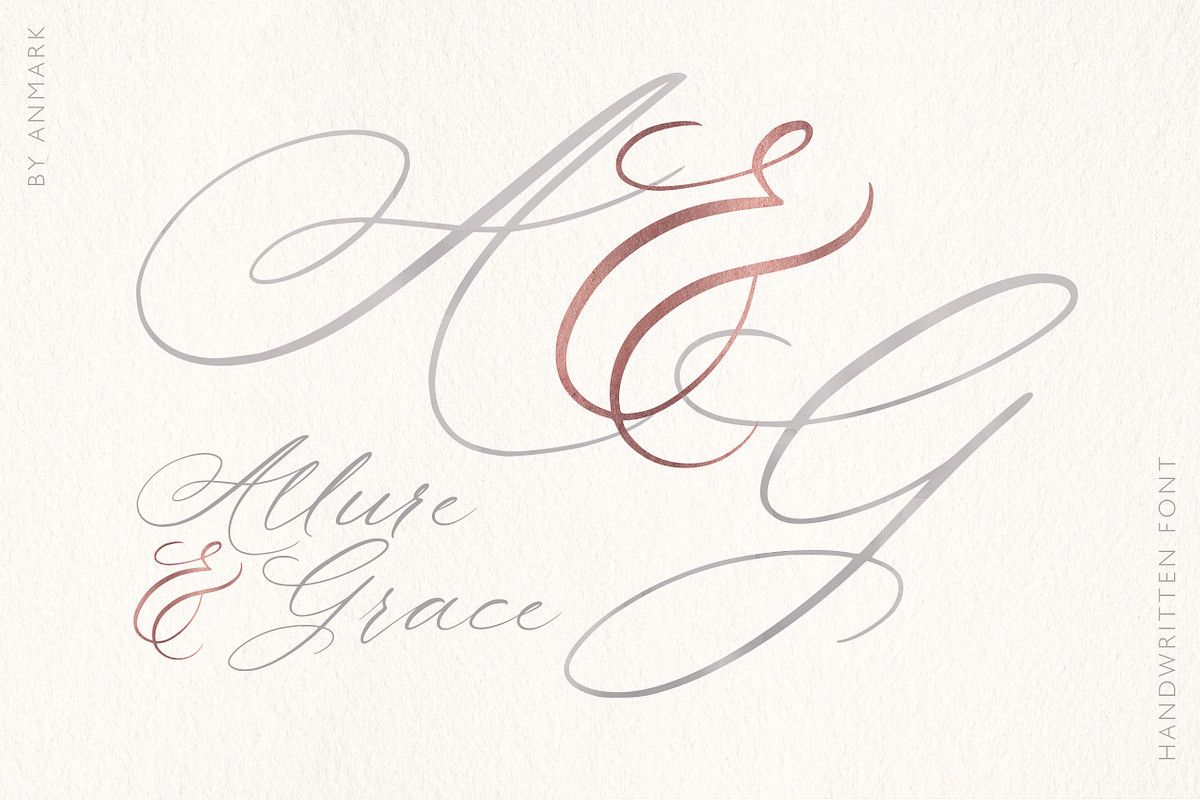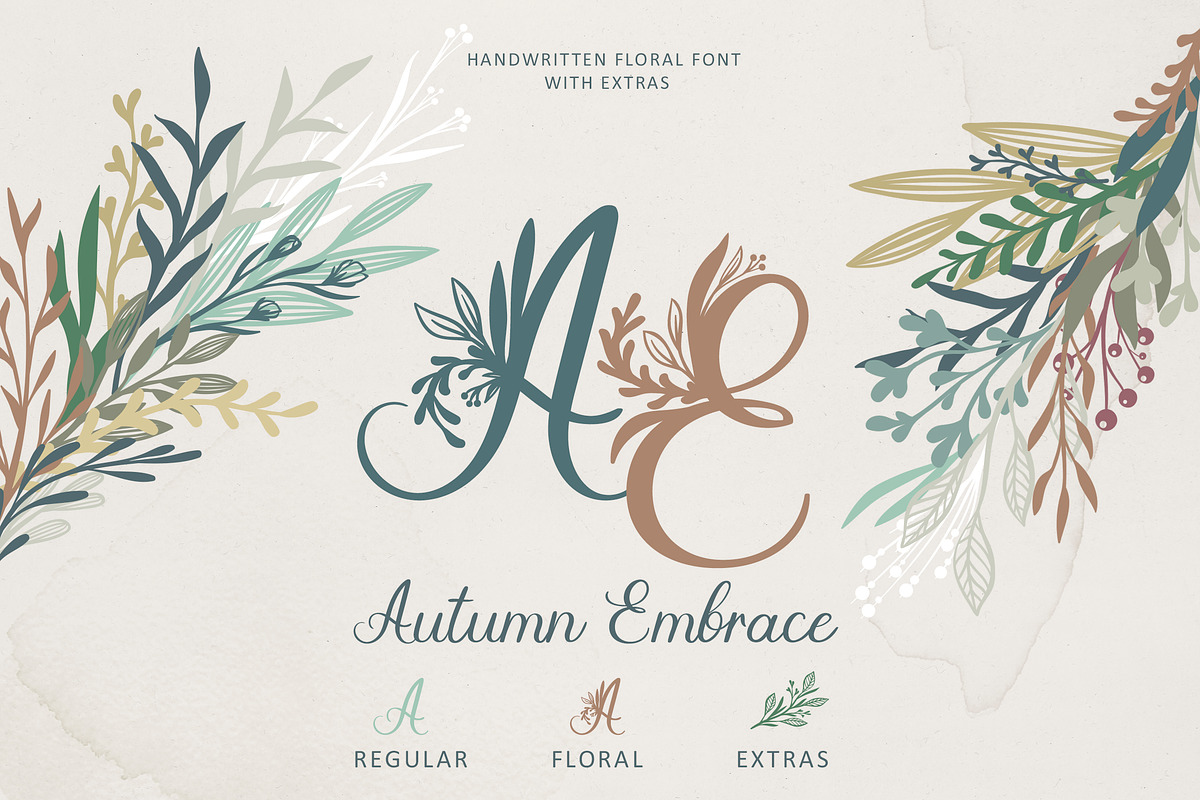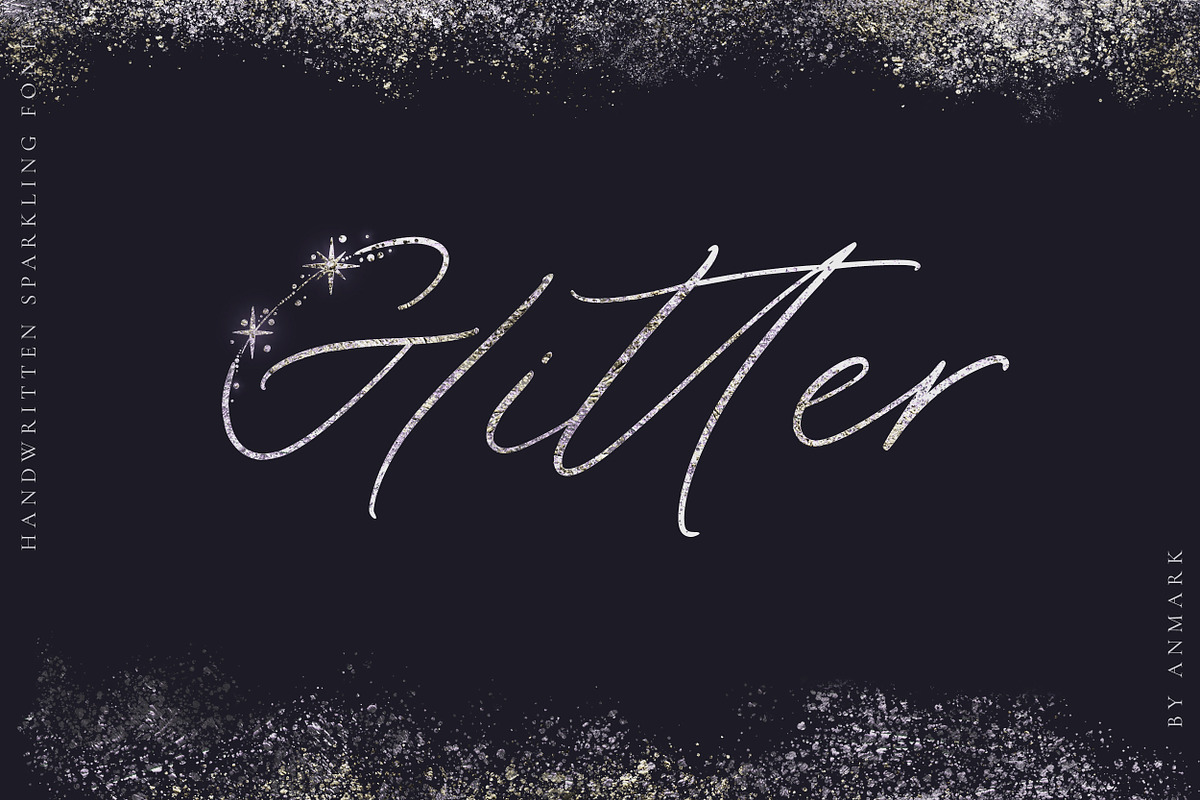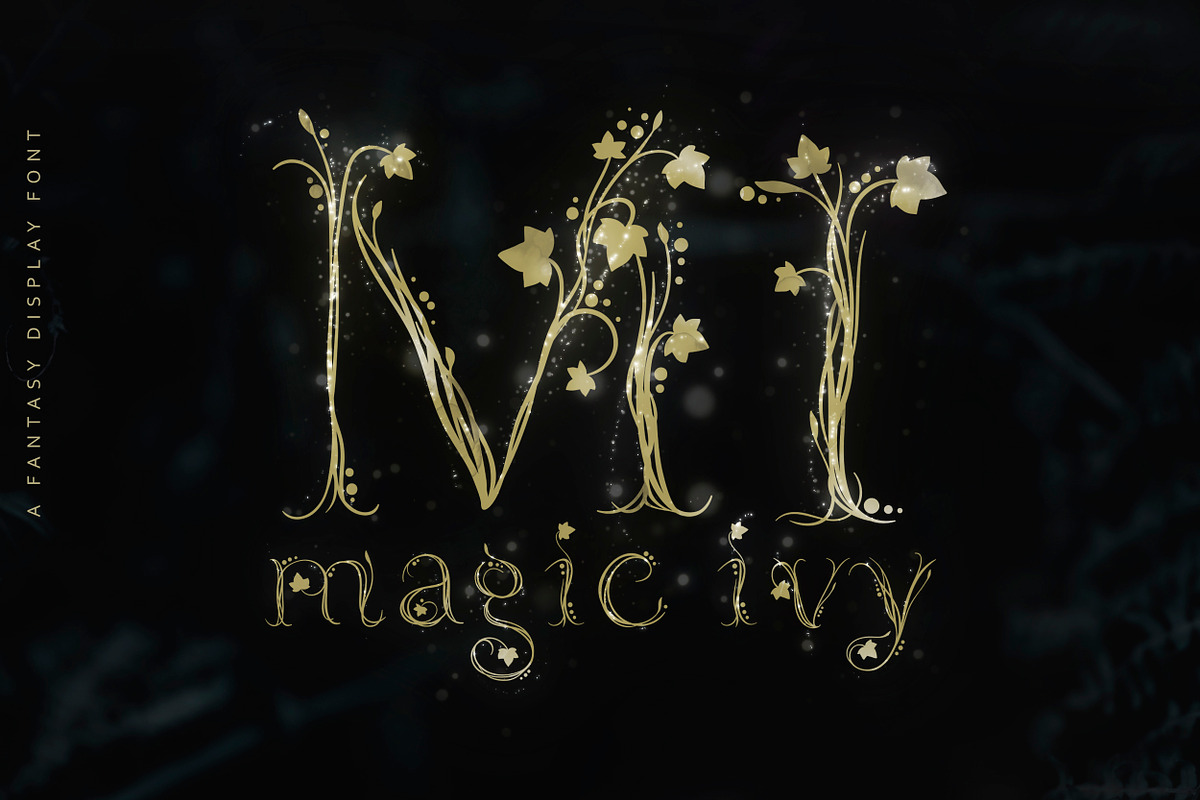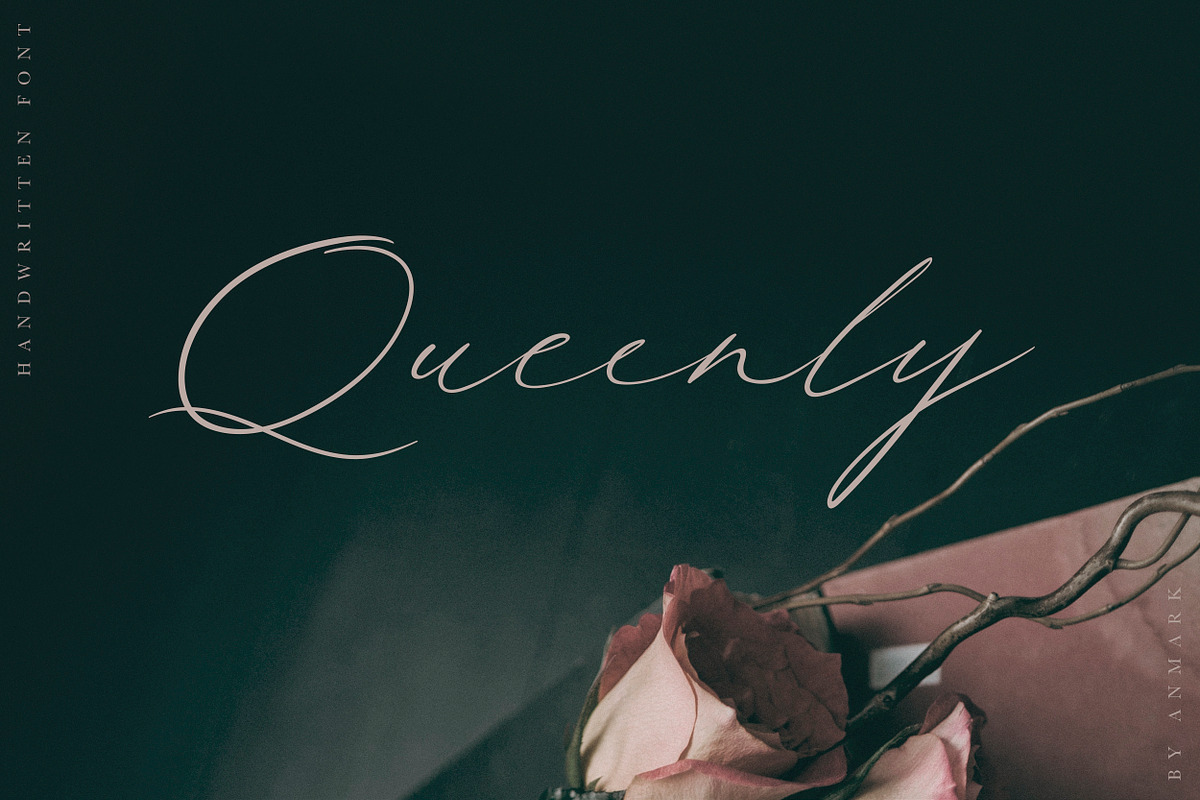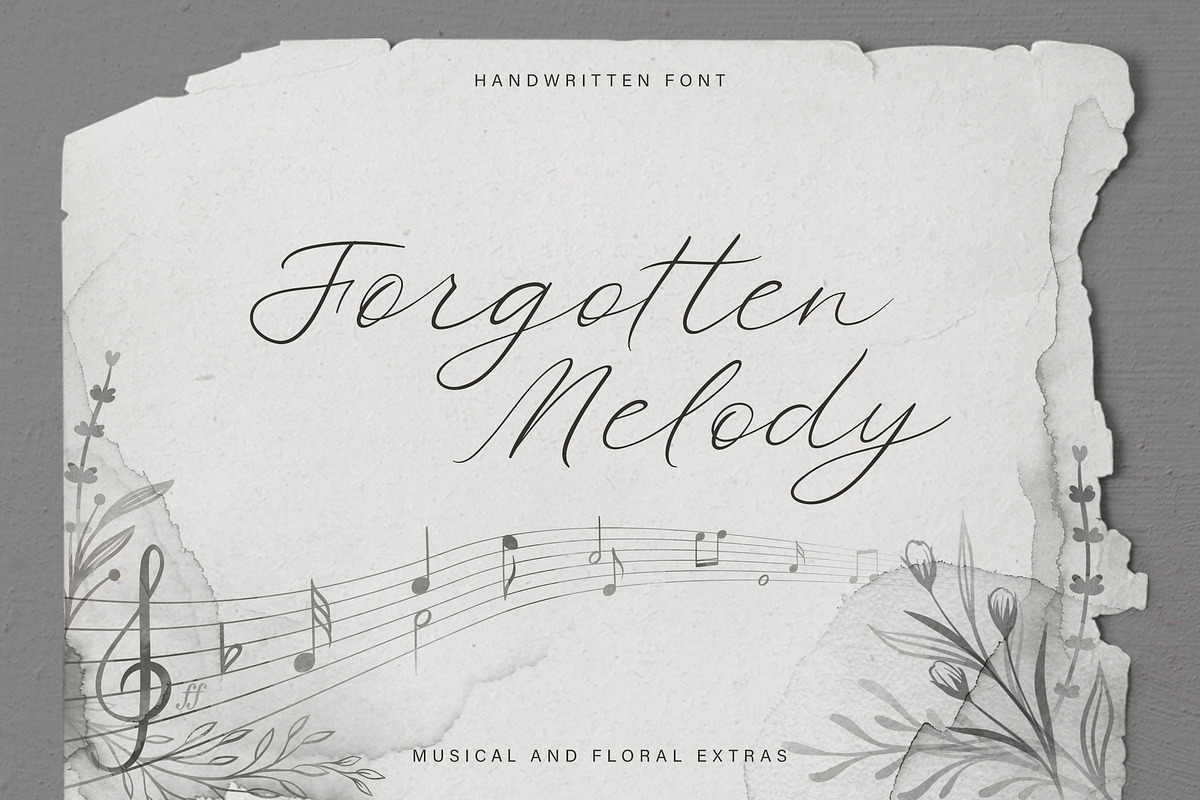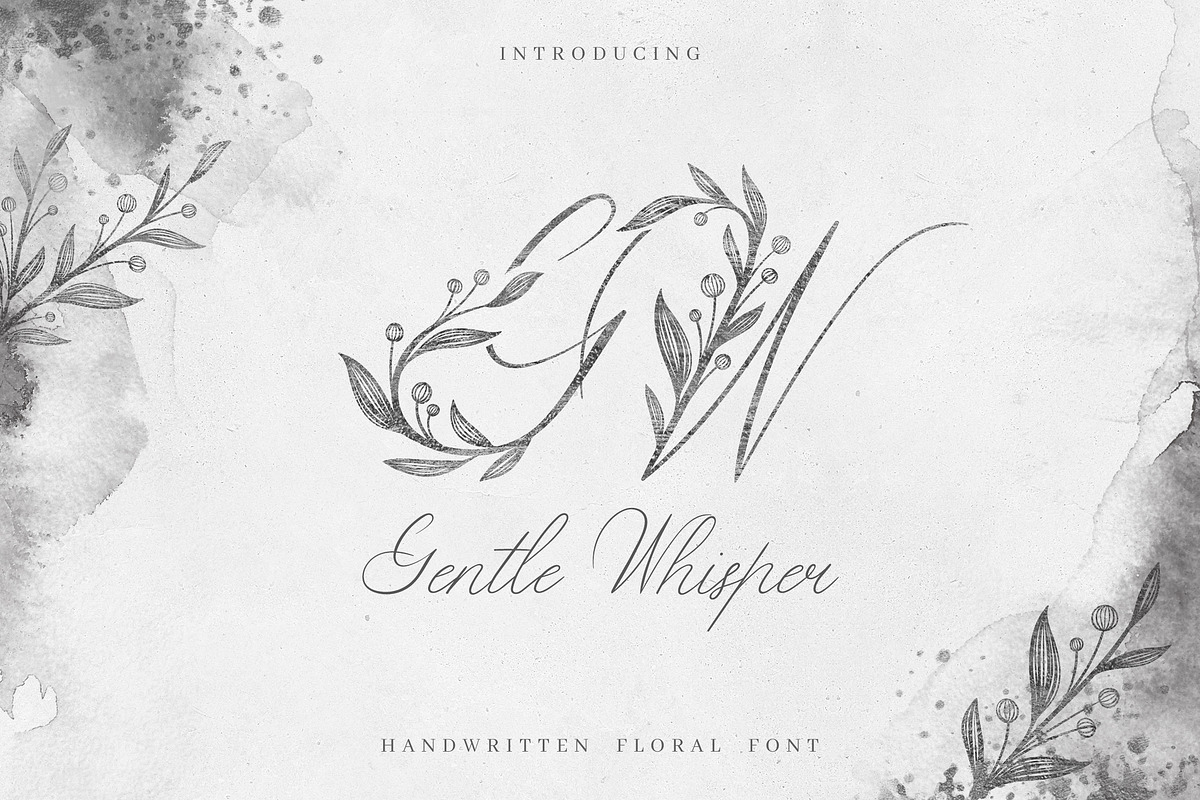
Handwritten Font BUNDLE
Handwritten Font BUNDLE - a collection of 16 typefaces in 31 unique font styles.
This bundle is perfect for wedding design projects, instagram, invitations, signatures, watermarks, logos, letterpress address, titles, birthday invitations, handwriting and other.
Modern calligraphy uppercase letters are ideal for your wedding monograms and logos. Use this fonts for wedding invitations, branding, packaging, magazines, florist shops, social media, restaurant menus, greeting cards, headers and many more.
- INCLUDES: Magic Ivy Forgotten Melody Odour Le Jardin Quaint Garden Limerence Jubilation Seascape Millennials Herbarium UPDATE September 2019
- Added 6 font families: Gentle Whisper Glitter Allure and Grace Queenly Autumn Embrace Spring Vibes YOU WILL RECEIVE: 16 typefaces - 31 font
- Modern calligraphy uppercase letters are ideal for your wedding monograms and logos.
Handwritten Font BUNDLE by AnMark fits naturally into Branding, posters, packaging, typography.